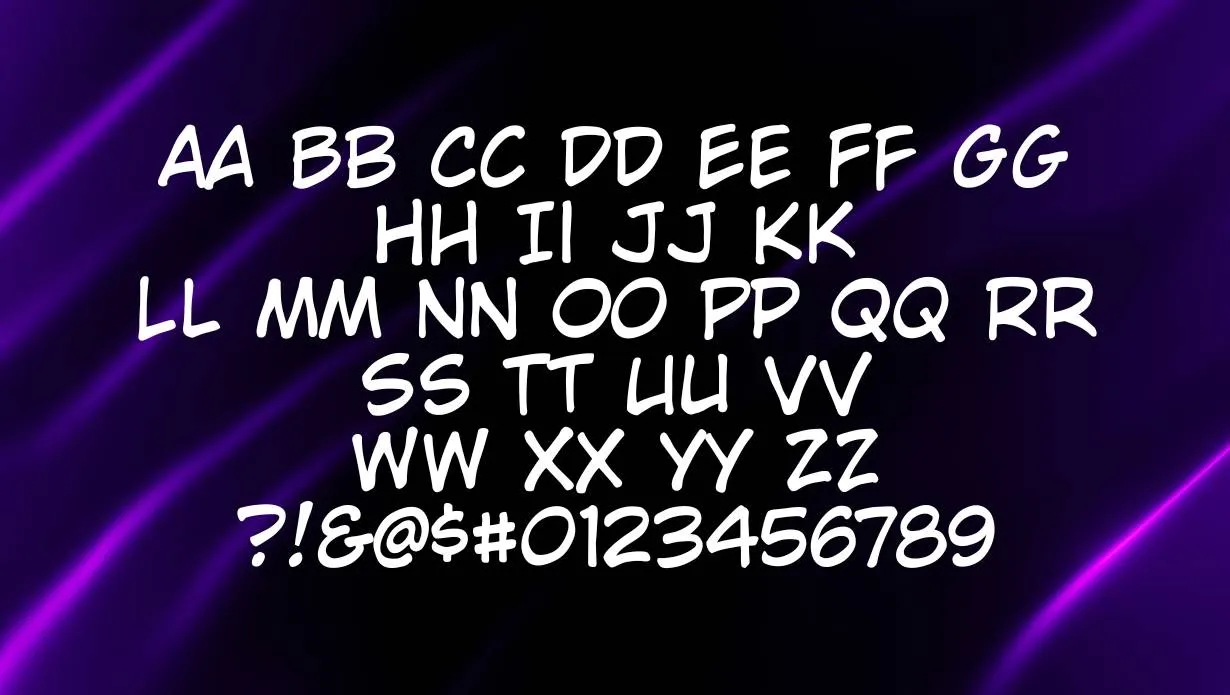
The Wild Words Font unleashes a torrent of creativity with its bold and expressive characters. Ideal for projects that demand a daring and unconventional look, this font is a perfect choice for posters, artistic endeavors, or designs that seek to break free from the ordinary.
| Name | Wild Words Font |
| Designer | John Roshell |